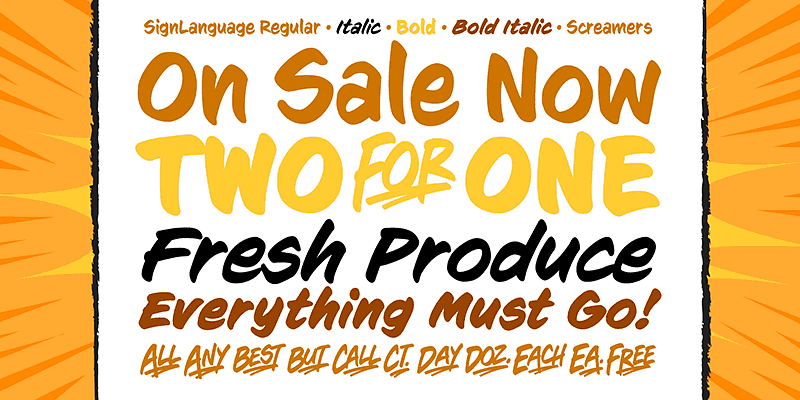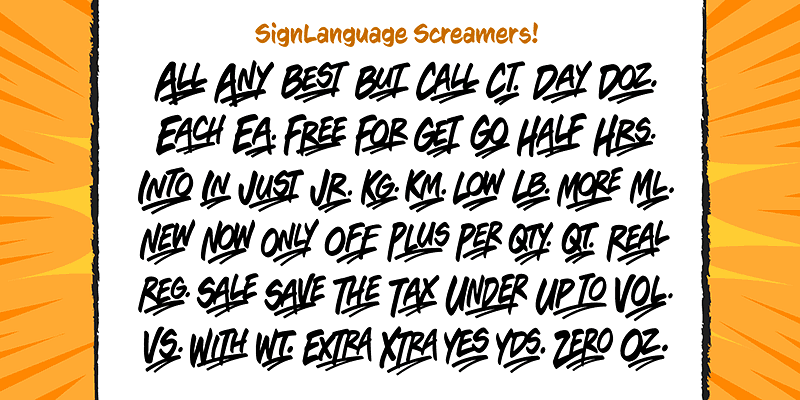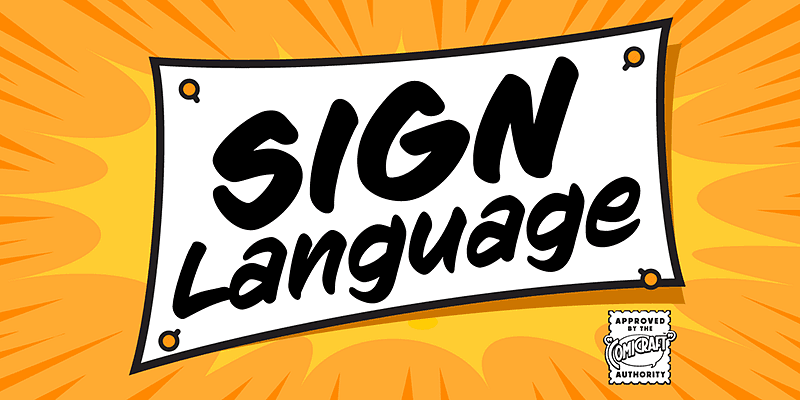
Inspired by the paint brush lettering at our local grocery store, Sign Language is a font that can put lettuce on sale, pull you up by your bootstraps, and make the impossible possible!